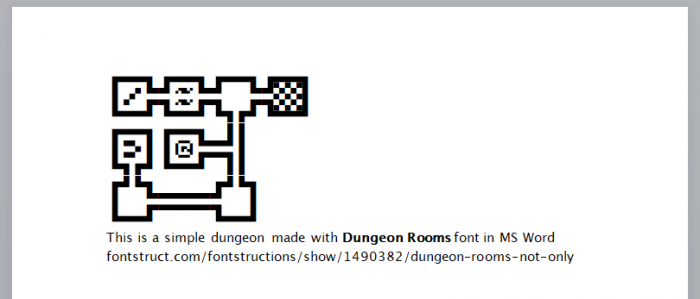
Dungeon Rooms - although originally intended as a utility for prototyping simple dungeons, has multiple purposes: writing letters within boxes, connecting the dots (maybe) or whatever you can do with it.
Currently it features 27 rooms and plenty of symbols to use within them.
STILL A WORK IN PROGRESS
- = + How to use this font + = -
1. Place a symbol (lowercase or punctuation listed somewhere below)
2. Place a room (uppercase A-W)
3. PROFIT!
- = + List of tiles + = -
--- Rooms ---
A - No doors
B - UP door
C - R door
D - L door
E - DOWN door
F - L+DOWN doors
G - L+UP doors
H - R+UP doors
I - R+DOWN doors
J - L+R doors
K - UP+DOWN doors
L - L+UP+DOWN doors
M - L+R+UP doors
N - R+UP+DOWN doors
O - L+R+DOWN doors
P - L+R+UP+DOWN doors
Q - L R path
R - UP DOWN path
S - L UP DOWN path
T - R UP DOWN path
U - L R DOWN path
V - L R UP path
W - L R UP DOWN path
X - DOWN-L turn
Y - DOWN-R turn
Z - UP-L turn
À - UP-R turn
--- Letters inside rooms ---
Each lowercase letter displays a 3x3 letter inside the box. Since 3x3 is ridiculously unreadable, I used some 0.5 bricks. Note that the lowercase and other entities meant to be placed within rooms technically have zero width, thus, to view them all you need to put spaces between them / set a high spacing value.
--- Add. Entities ---
. , ? ! + - / < = > \ | are what they should be, but within the same limit of 3x3
( and ) depict liquids (water, lava etc.)
_ # are dithered tiles to use inside rooms, while $ is a black tile
2/11/2018 @ As requested by Se7enty-Se7en, added numerals. Also remade lowercases.
2/11/2018 @ As requested by zephram, added tiles representing some kind of liquids (water, lava, magma, anything you can think of), placed on ( and ).
2/12/2018 @ Added some Cyrillic characters and Greek "α", "β" and "γ".
2/12/2018 @ FINALLY ADDED "@"
Also remade lowercases to fit the style of numerals
So, @zephram, dwarves from the northern outpost sent us some water and lava. Our manager appointed them to ( and ). Don't know if I will be able to make diagonal paths, but will try to. Enjoy!
Can you also put the up right path on @ as well...
@Se7enty-Se7en, if you mean that UP+R path that just didn't fit in the A-Z range, it is on the À. The reason why I didn't use @ is that I plan to make it a different symbol (remember Adventure Mode in Dwarf Fortress or roguelikes, where @ is usually used for drawing the main char.)
You do know I cannot type À on a US keyboard without the numpad... I have a custom layout...
@Se7enty-Se7en, I don't use a layout with accented letters as well, but look up to the image where I explained how to use Character Map--a pre-installed Windows app which can be found in Windows Accessories folder in Start menu.
I noticed you have a pre-composed character you can type by typing c then A
it would be cool to swap the P and E, and to swap the W and T so that maps could be created with random text. E and T are the most common letters, and the 'pass-through' glyphs are at P and W. Or you could move the W to the space.
First sample ready, cap'n!